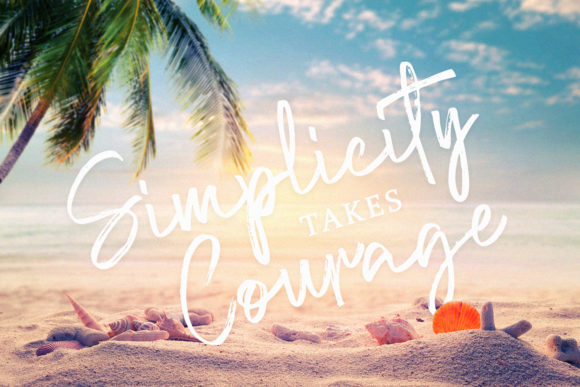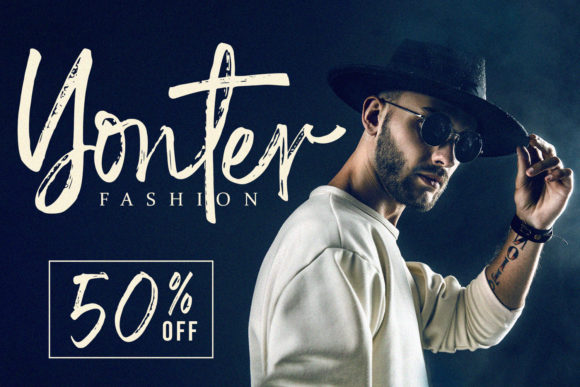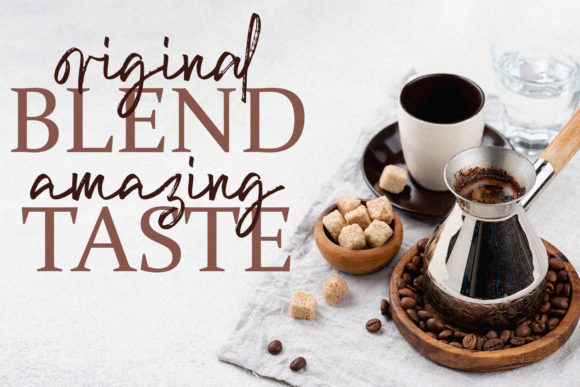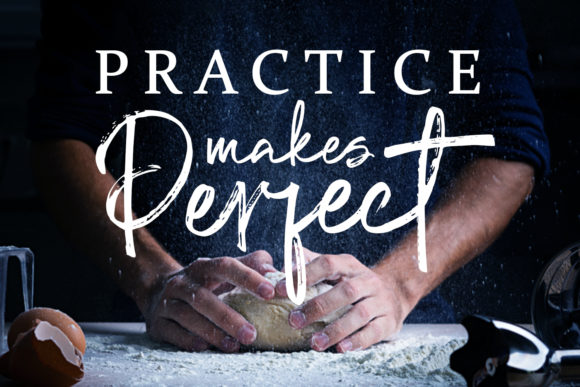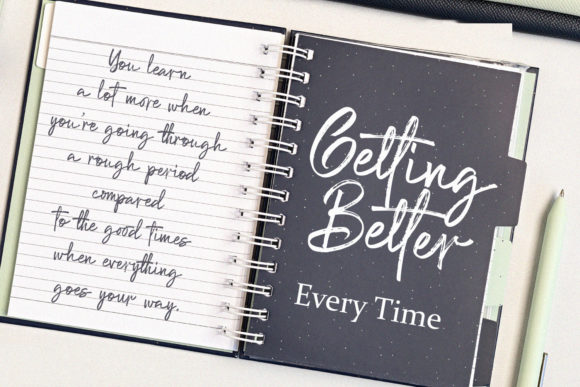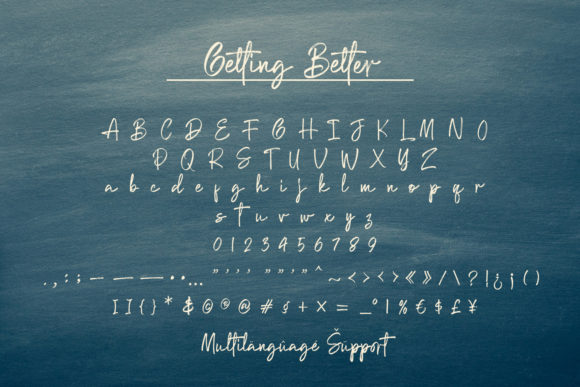
Unlocking Creative Potential: A Comprehensive Guide to Getting Better Font
In the realm of typography, fonts play a pivotal role in conveying messages, evoking emotions, and adding aesthetic appeal to designs. For designers and crafters, finding the perfect font can be a game-changer. One such font that has been making waves in the design community is the Getting Better Font. This stunning script font, with its casual feels, offers a world of creative possibilities. In this article, we’ll dive deep into the features, benefits, and uses of the Getting Better Font, exploring how it can elevate your designs to new heights.
What is Getting Better Font?
Getting Better is a beautifully crafted script font that exudes a sense of casual elegance. Its fluid strokes and charming ligatures make it an ideal choice for a wide range of design projects, from branding and advertising to packaging and digital media. What sets Getting Better apart is its PUA (Private Use Area) encoding, which allows for effortless access to all glyphs and swashes, providing unparalleled flexibility and creativity.
Key Features of Getting Better Font
- PUA Encoded: The PUA encoding of Getting Better Font means that users can easily access and utilize all the glyphs and swashes, enabling a high degree of customization and creativity in design projects.
- Casual yet Elegant: The font’s casual feel makes it perfect for designs that require a friendly, approachable tone, while its elegant strokes ensure it remains sophisticated and professional.
- Versatile: Suitable for a variety of design applications, including logos, branding, social media graphics, posters, and more.
The Getting Better Font offers numerous benefits for designers and crafters looking to enhance their projects:
- Time-Saving: With its comprehensive set of glyphs and swashes, designers can save time that would otherwise be spent on customizing and fine-tuning their typography.
- Enhanced Creativity: The font’s extensive features encourage experimentation and creativity, allowing designers to push the boundaries of their designs.
- Consistency: For branding projects, the Getting Better Font ensures consistency across various platforms and materials, reinforcing brand identity.
- Professional Results: Achieve professional-looking results without the need for extensive design experience, making it accessible to crafters and beginners.
The Getting Better Font is a powerful tool for designers and crafters seeking to elevate their typography and create outstanding designs. With its casual elegance, PUA encoding, and versatility, it’s an excellent addition to any designer’s toolkit. Whether you’re working on a branding project, crafting unique social media graphics, or exploring your creativity through digital art, the Getting Better Font offers endless possibilities. So why wait? Unlock your creative potential today with the Getting Better Font and discover a new world of design possibilities.